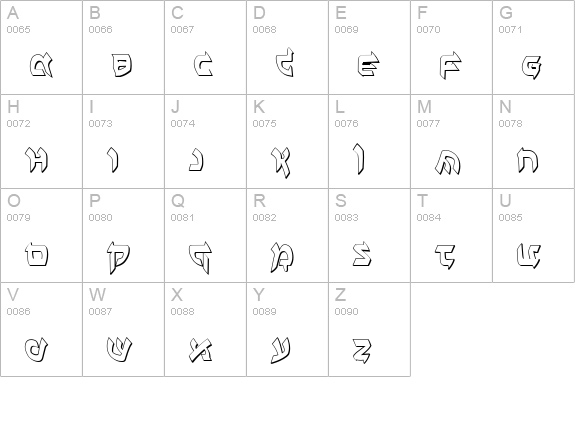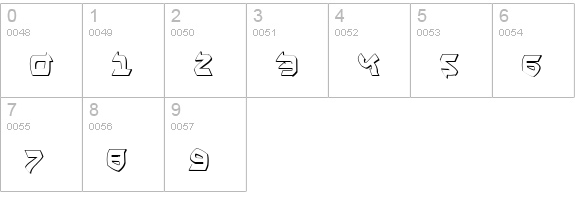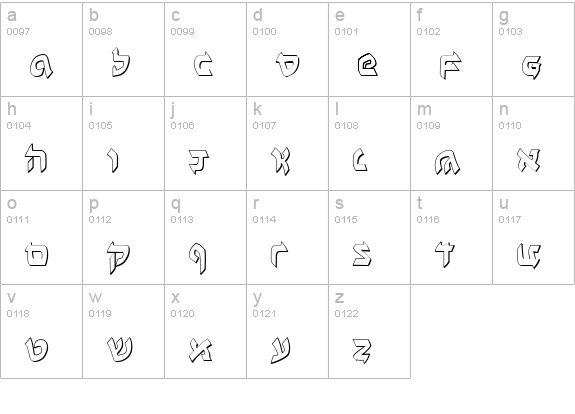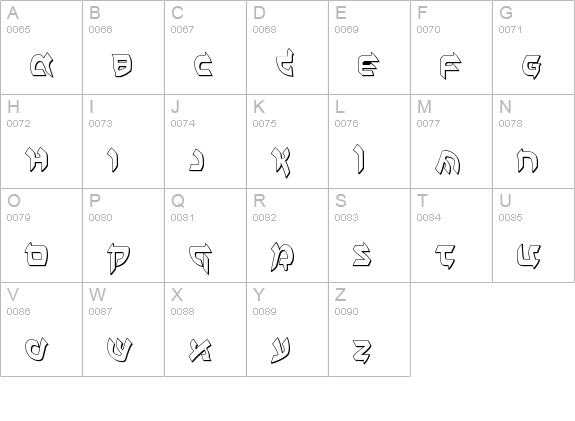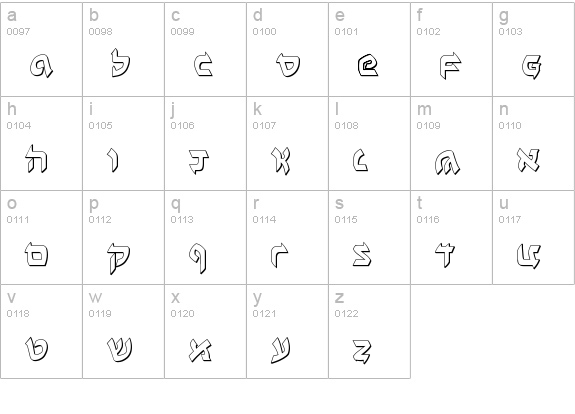
Ben-Zion 3D Font Details
Introducing the mesmerizing Ben-Zion 3D font, a stunning typeface that brings creativity and depth to your design projects. With its unique three-dimensional effect, Ben-Zion adds a dynamic and modern touch to any text or graphic. This font is perfect for making your designs stand out and captivate your audience. The best part? Ben-Zion 3D font is available for free download at FontsMarket.com. Yes, you read that right - you can easily access this eye-catching font without any cost. Whether you're working on branding, packaging, posters, or any other creative endeavor, Ben-Zion 3D font is sure to elevate your designs to new heights. Don't miss out on this fantastic opportunity to enhance your projects with the striking Ben-Zion 3D font. Download it now for free and let your creativity shine!